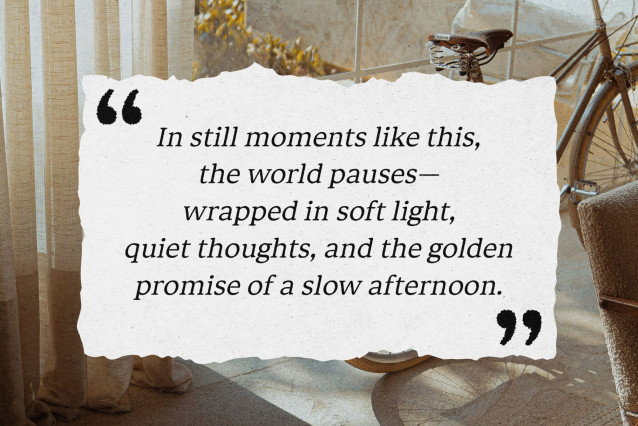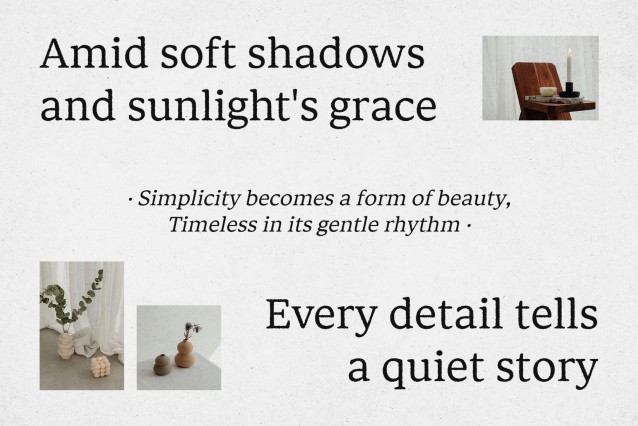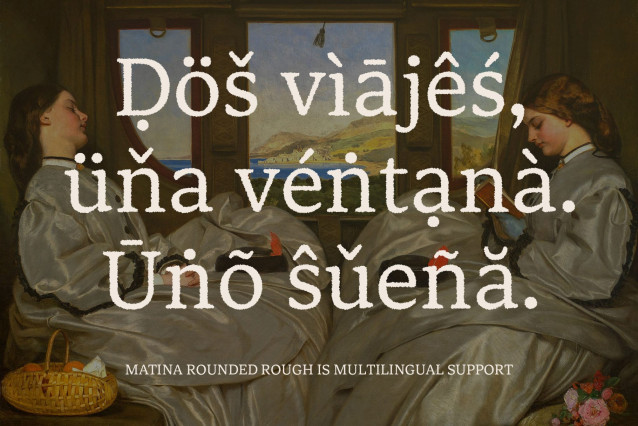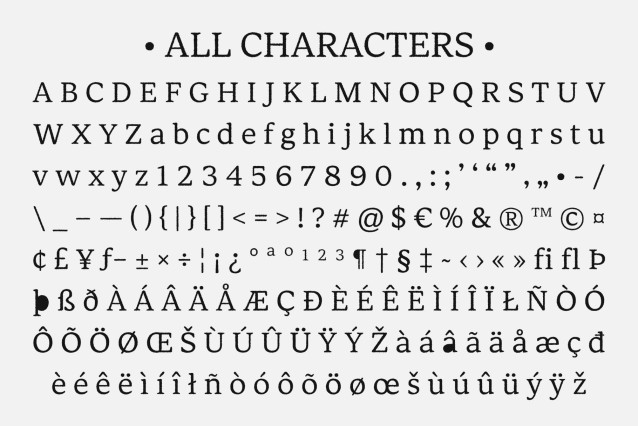
Matina Rounded Rough Font
Matina Rounded Rough Font is a modern classic serif font that blends clean, contemporary design with rounded edges, offering a look that is both elegant and highly readable. The bold serif shapes are softened by the rounded curves, creating a friendly yet sophisticated character that balances strength with warmth.